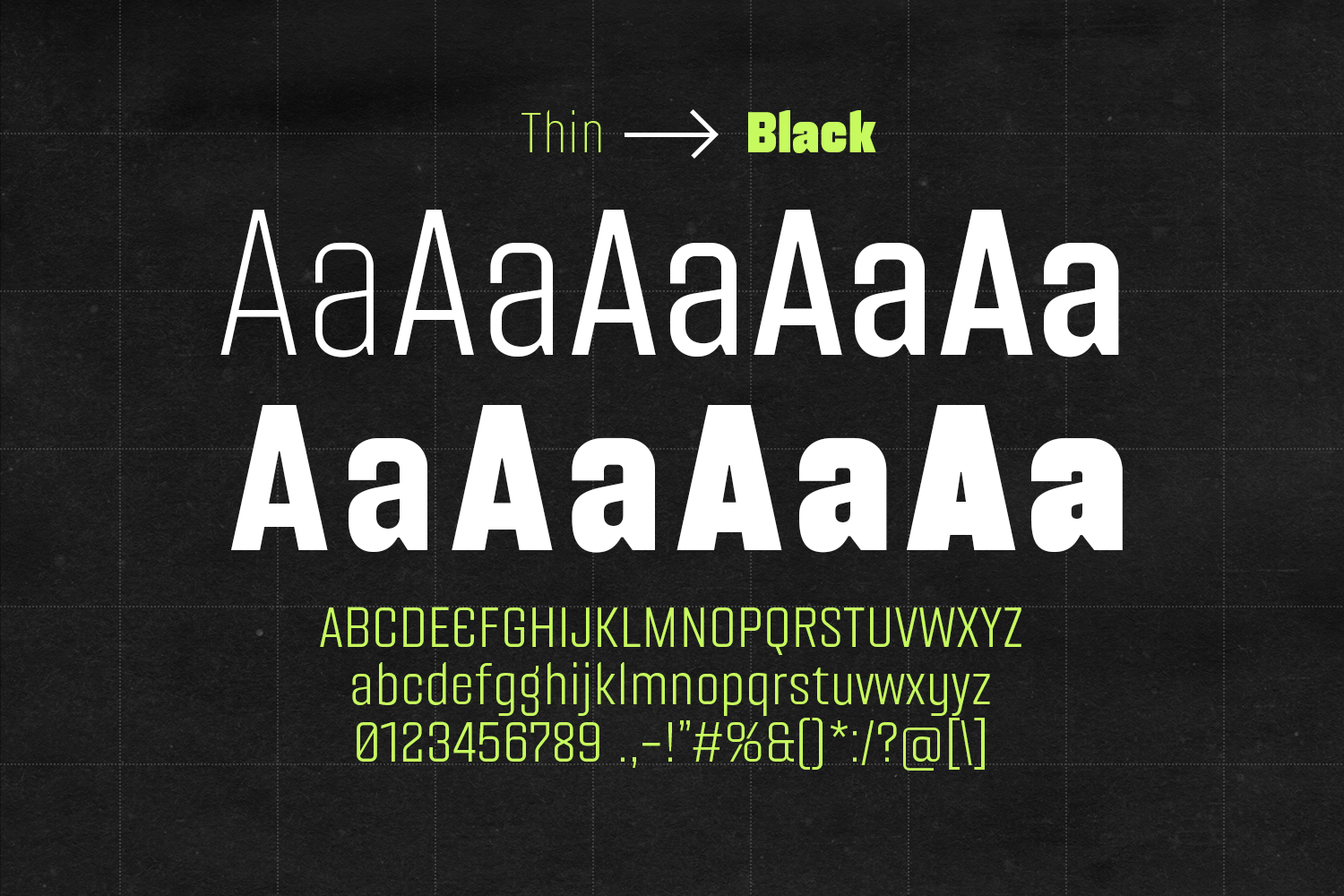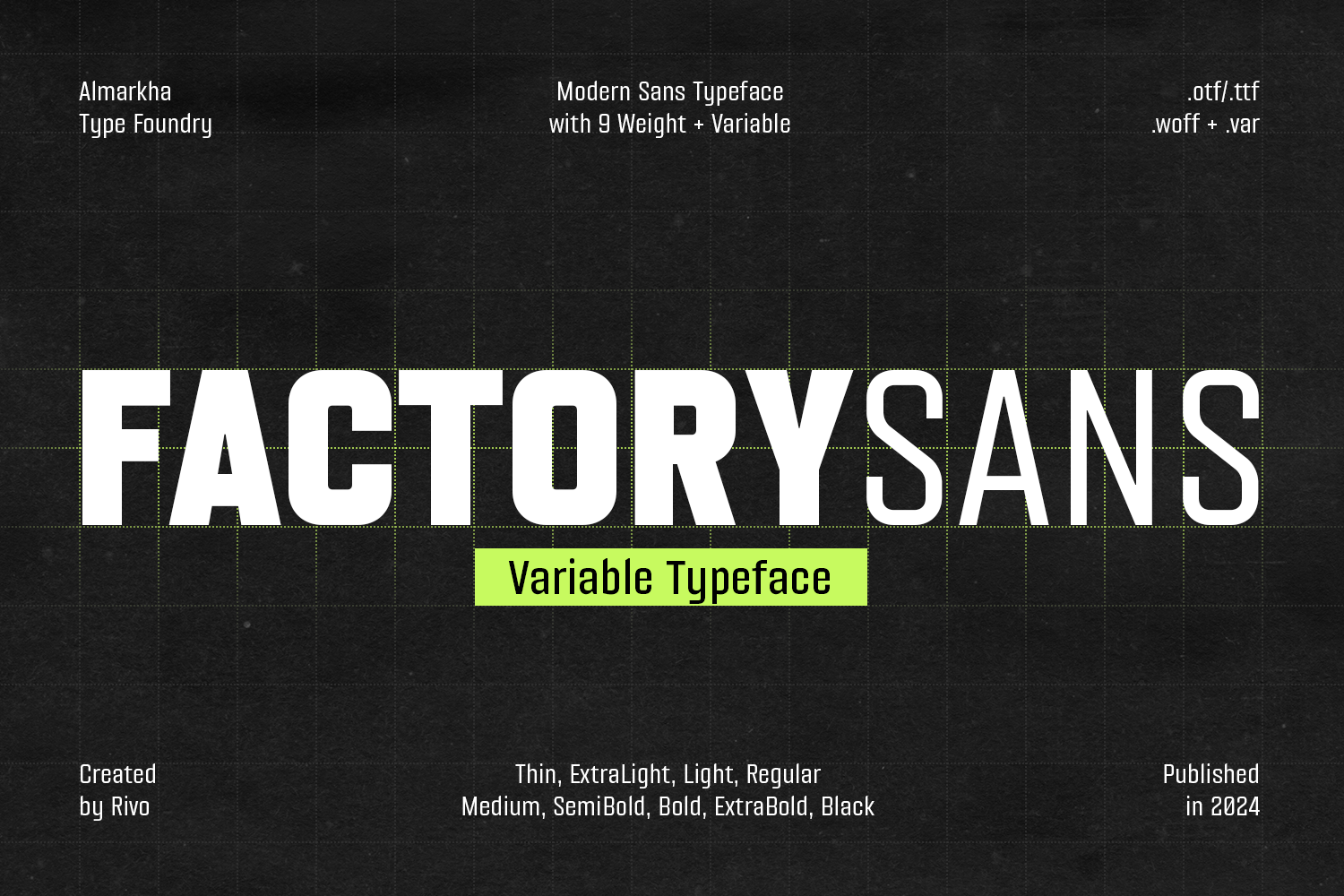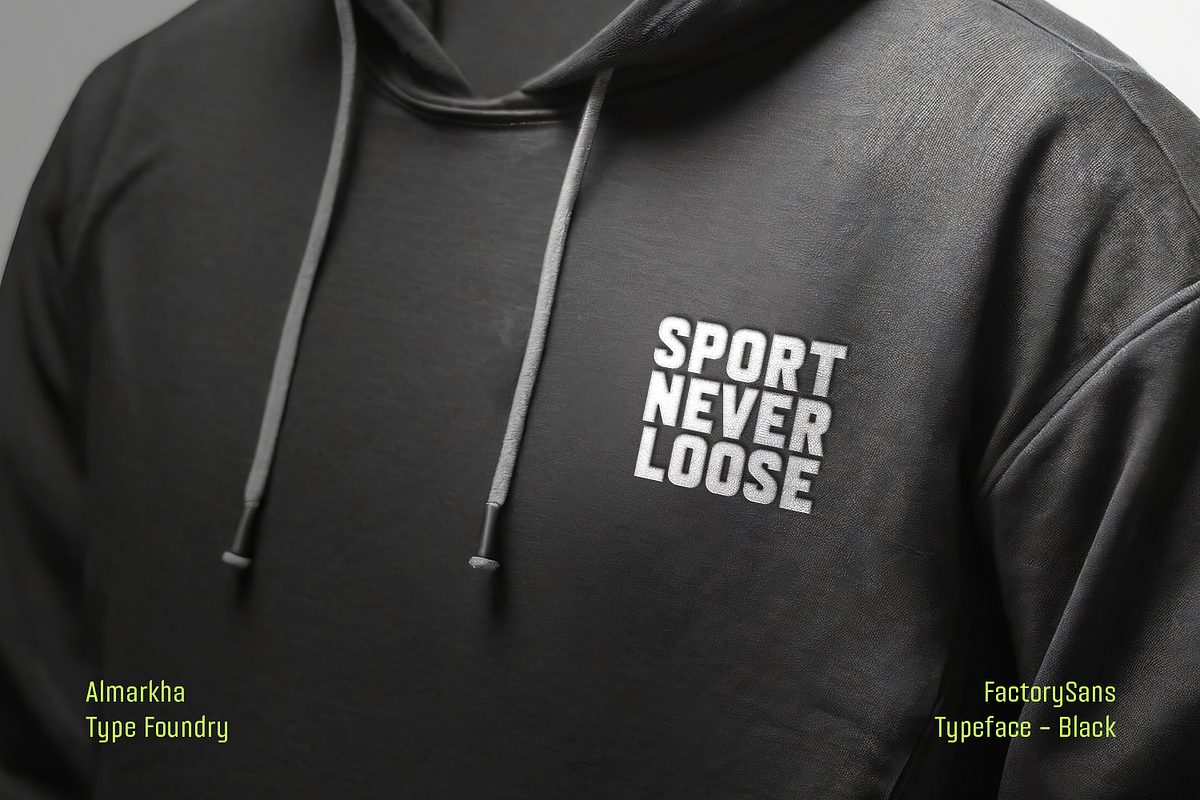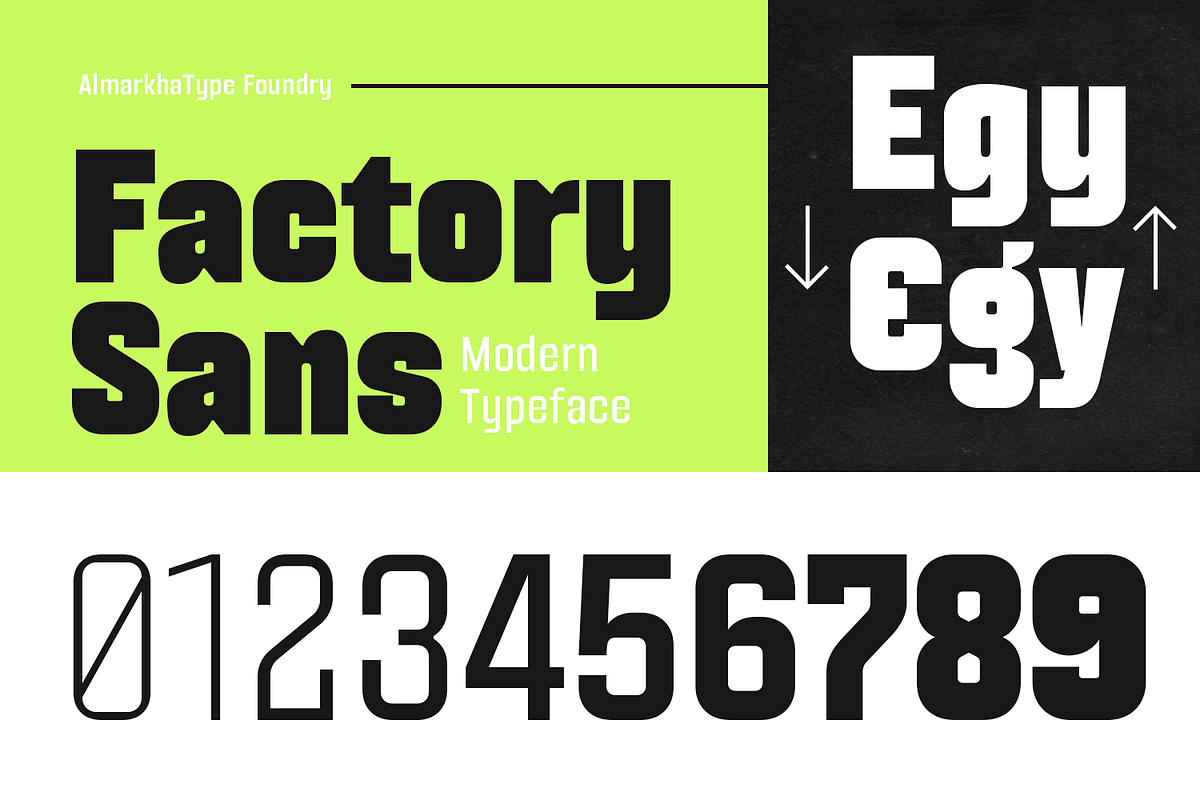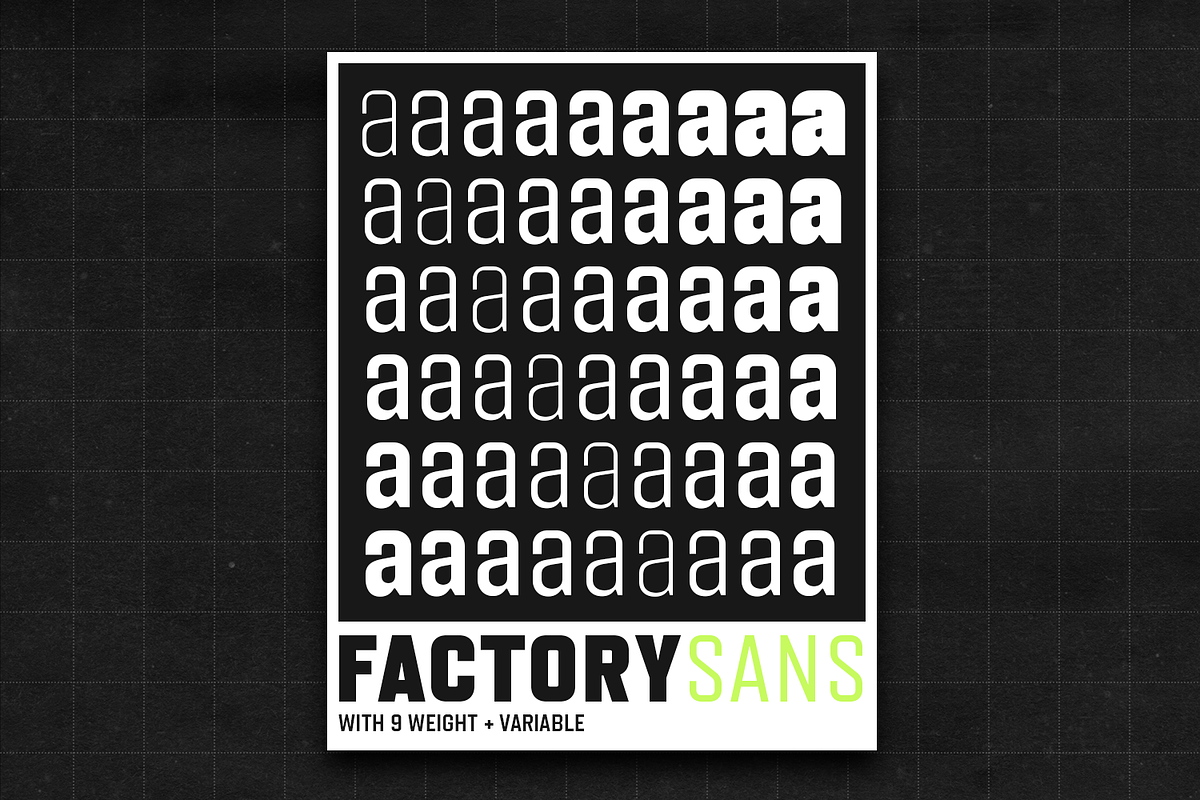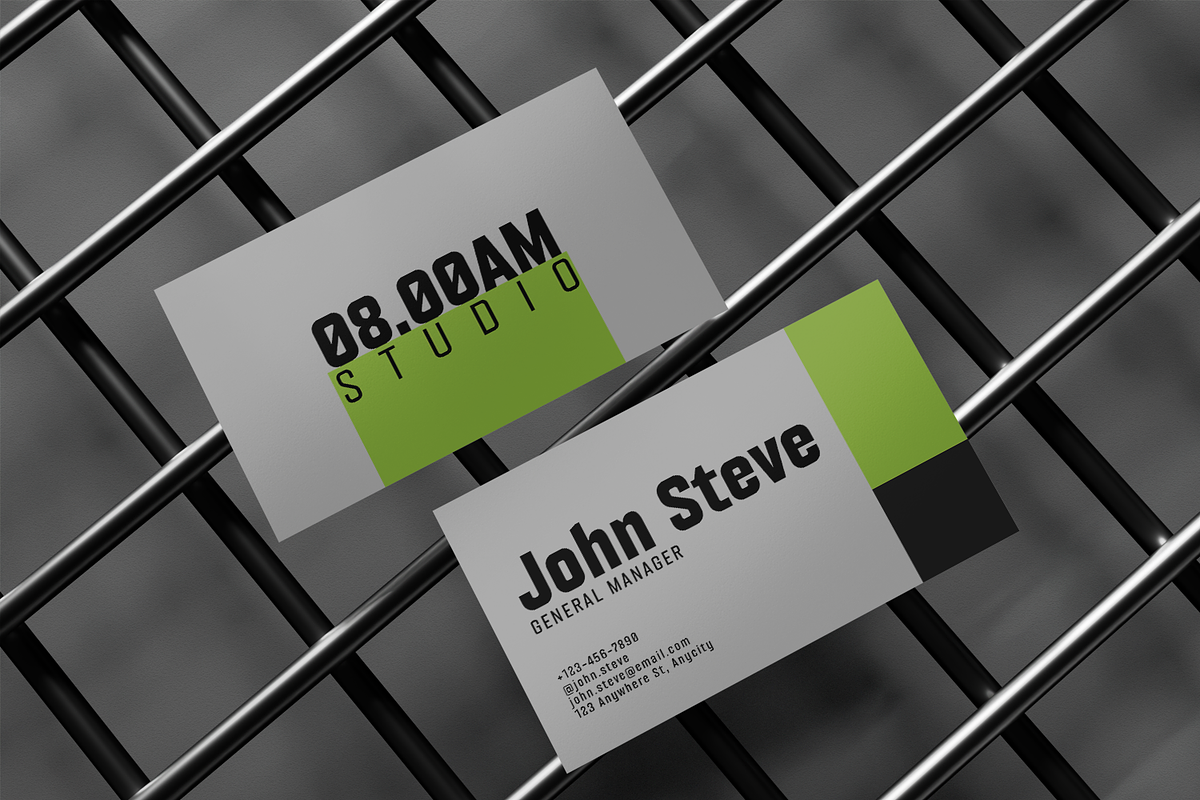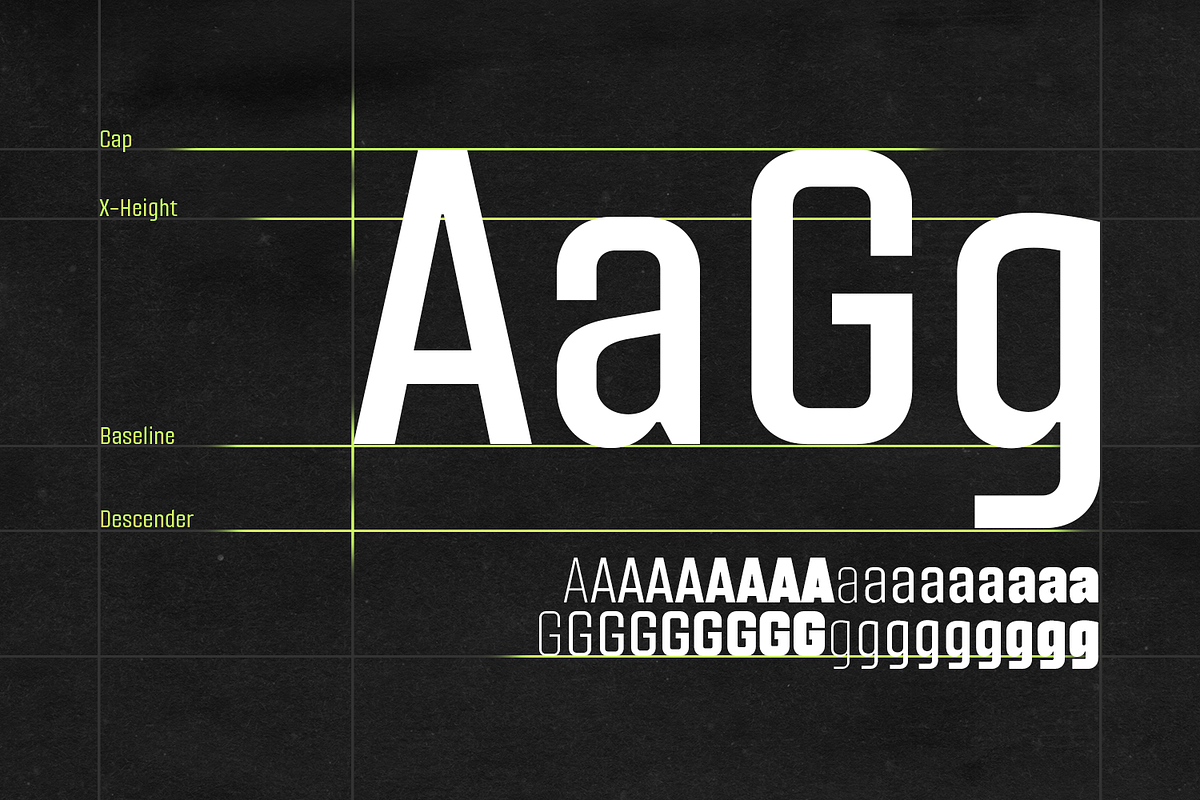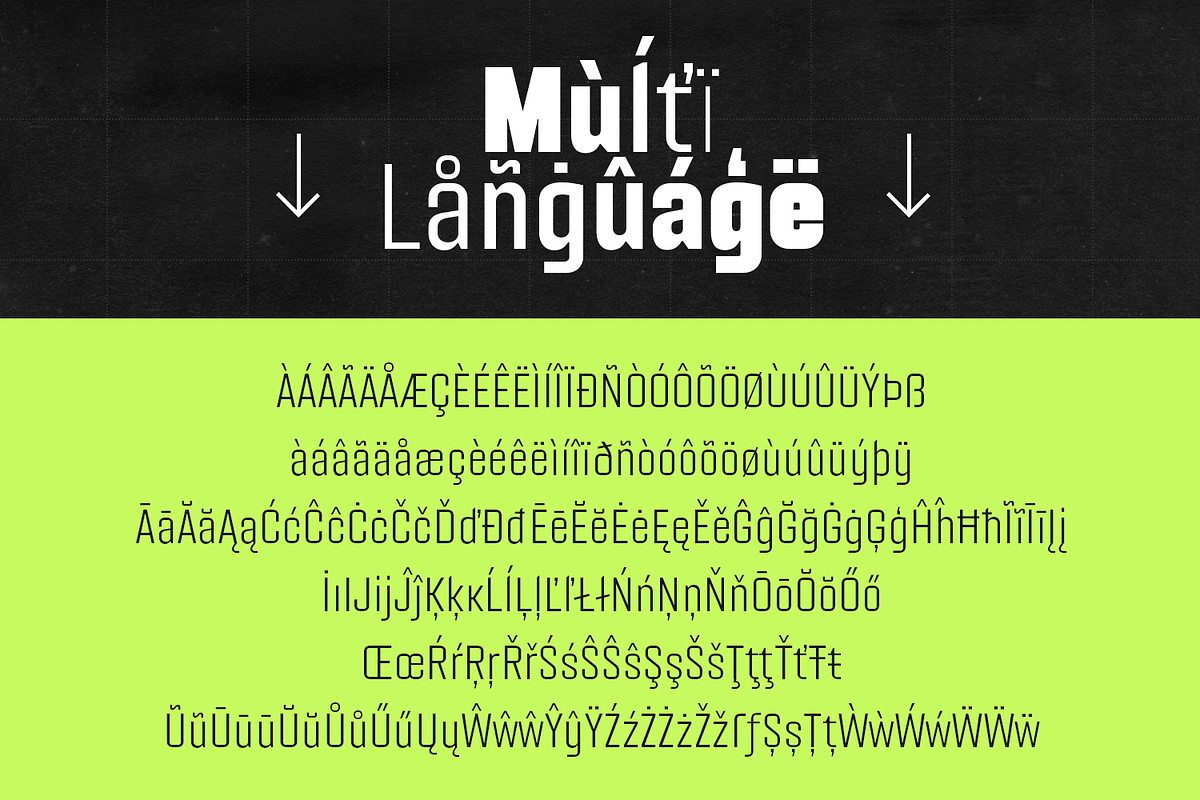
Factory Sans – Modern Sans Typeface
Factory Sans is a sleek, modern sans-serif typeface inspired by futuristic design aesthetics. This font embodies the clean lines and minimalistic forms that characterize forward-thinking design, making it an ideal choice for projects that aim to convey innovation and a cutting-edge feel.
Factory Sans is highly versatile, suitable for a wide range of applications from digital interfaces to print media. Its clarity and legibility at various sizes make it perfect for user interfaces, websites, branding, and editorial design.